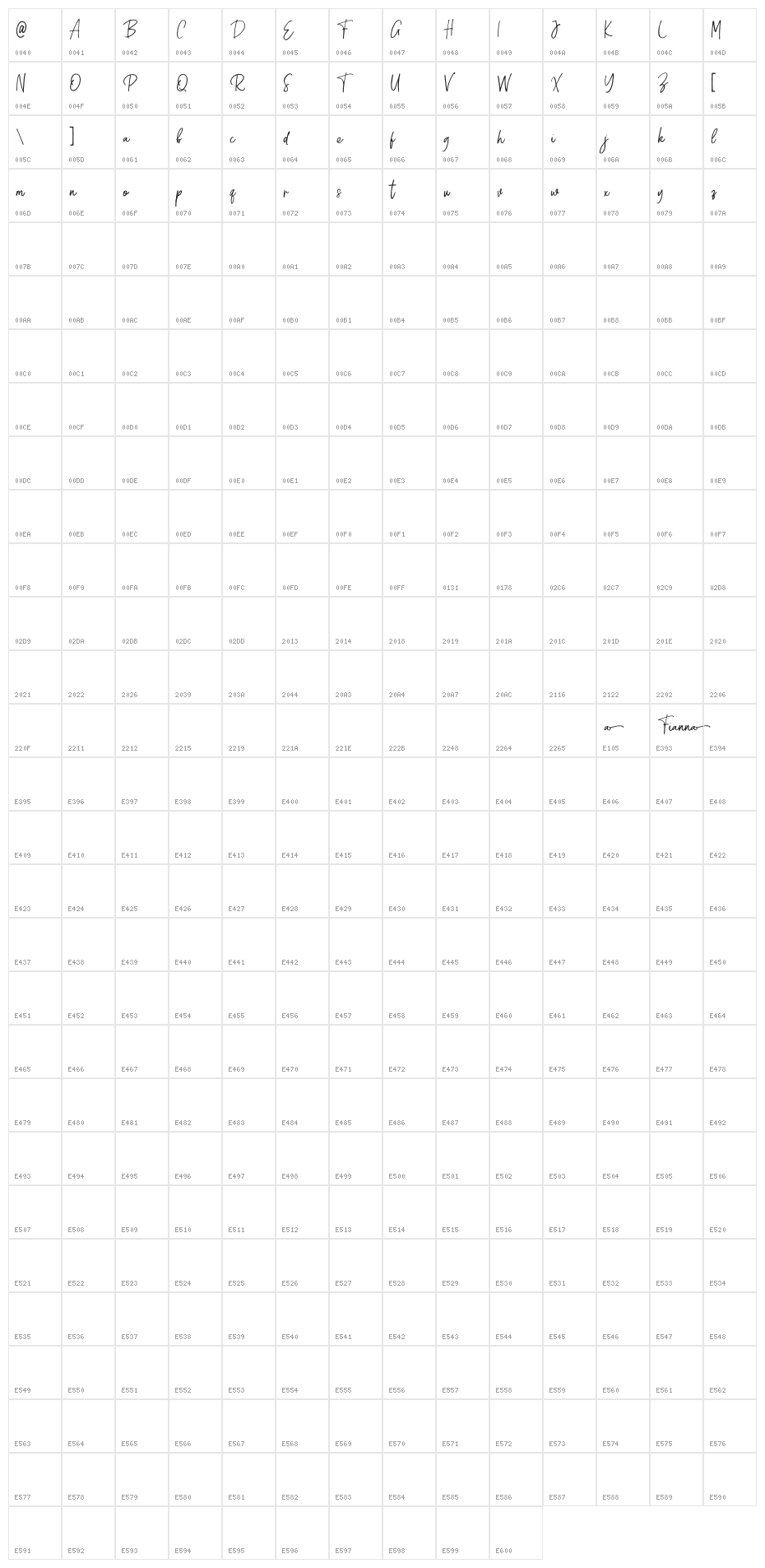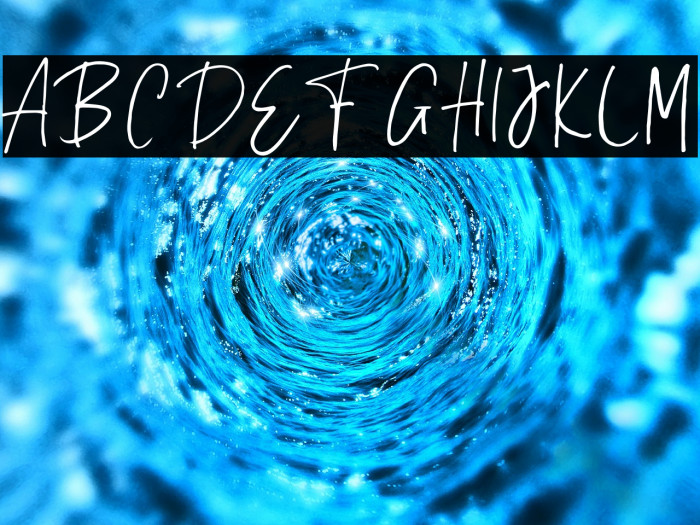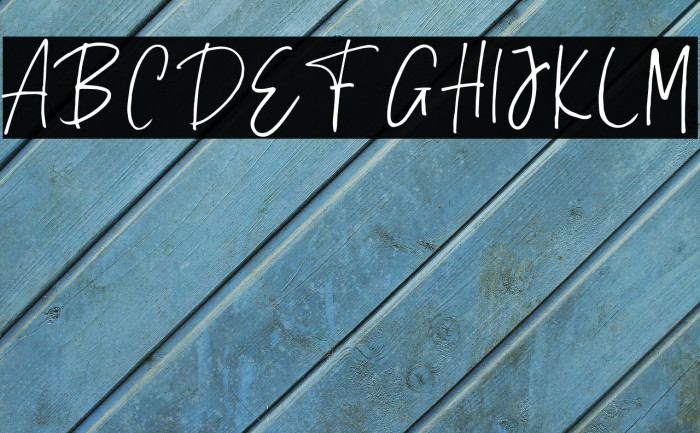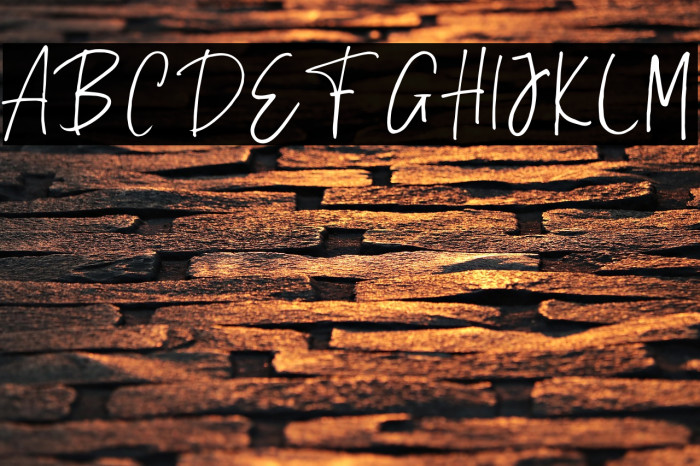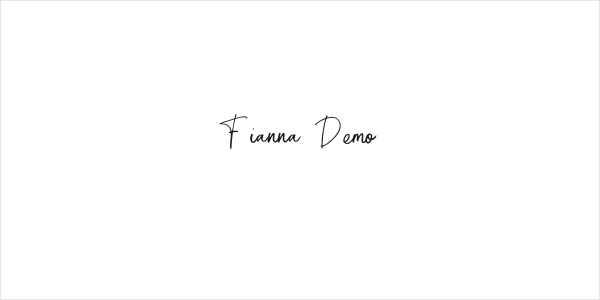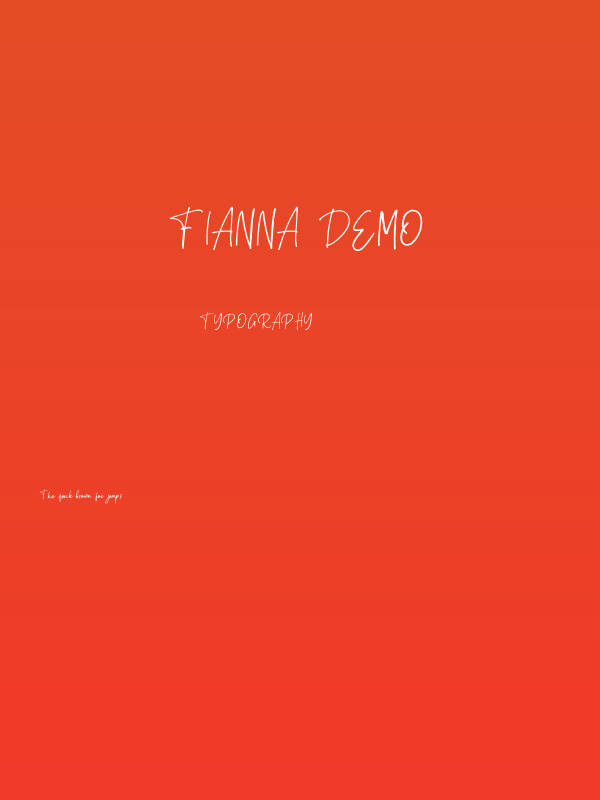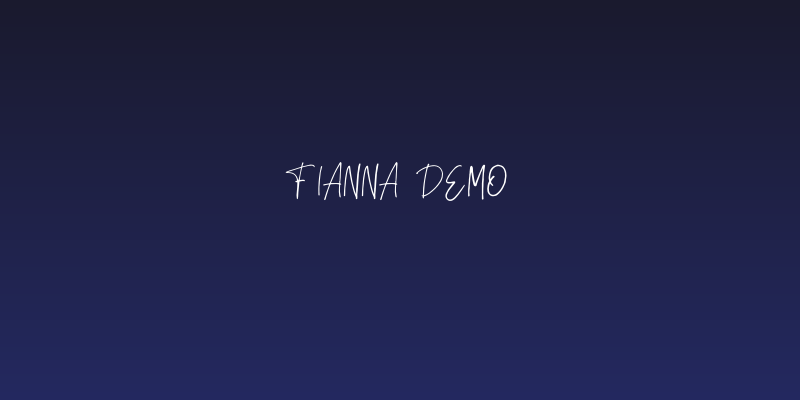
Fianna Demo Font
Fianna Demo Description
This font features a lively and dynamic handwritten style, characterized by its fluid and organic strokes. The uppercase letters are tall and slightly narrow, with a playful yet elegant flair. The lowercase letters maintain a consistent flow, enhancing the handwritten aesthetic. The overall appearance is casual yet sophisticated, making it suitable for creative and expressive projects. The font's unique charm lies in its ability to convey a sense of personal touch and authenticity, making it ideal for designs that require a human element.